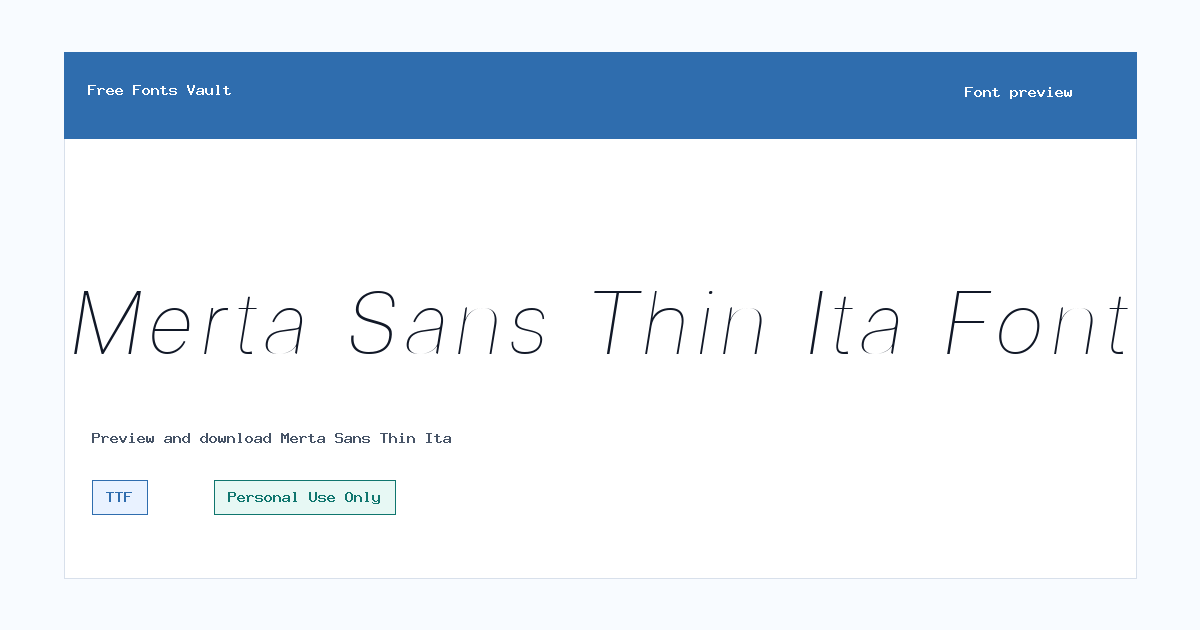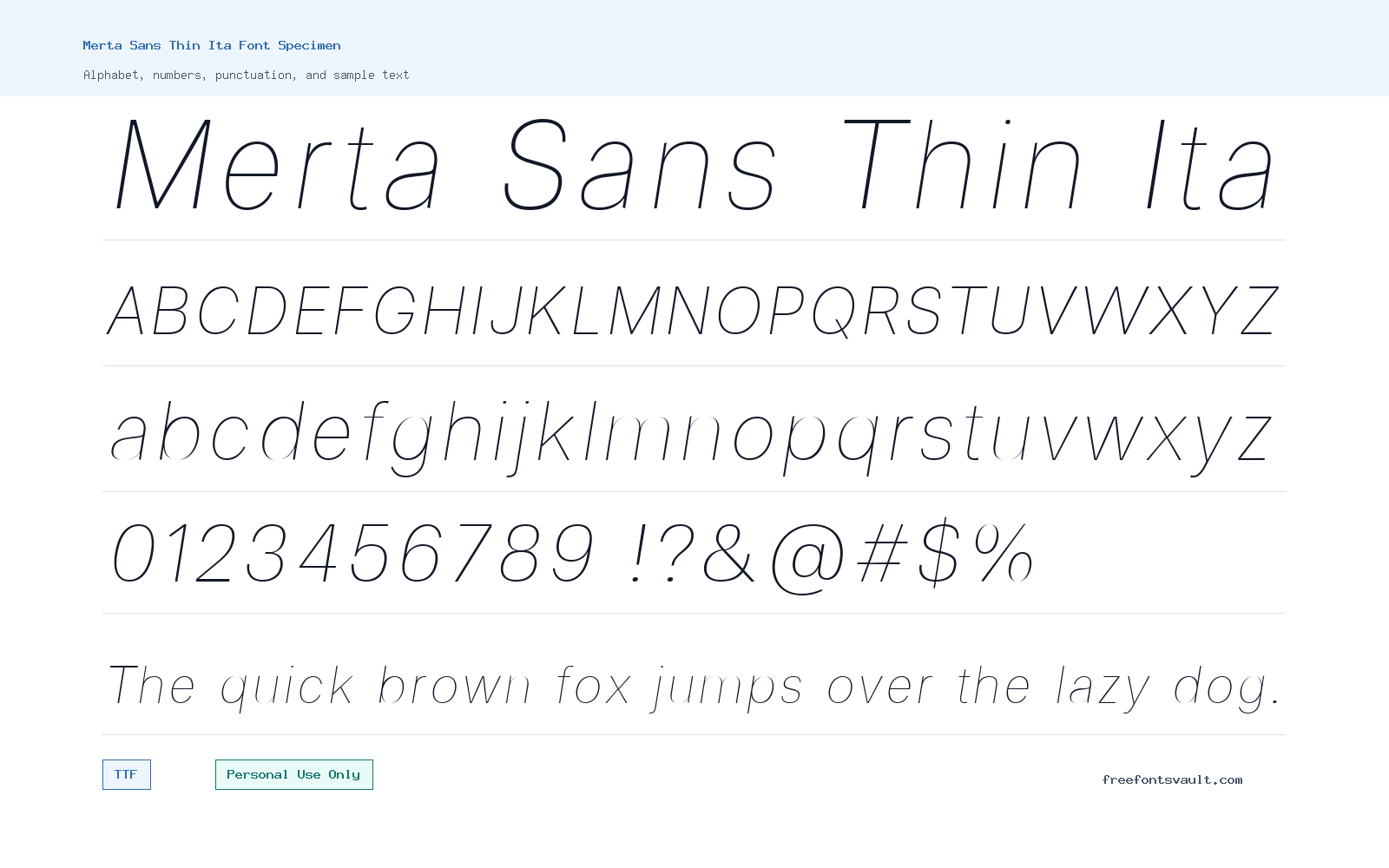
Merta Sans Thin Ita
- Designer Diki Pradipta Tri Atmojo
- Foundry Lettertype Studio Co.
Merta Sans Thin Ita font.
Merta Sans Thin Ita is a thin italic style from the Merta Sans family, designed for light, slanted typography with a clean sans-serif feel. Its fine weight makes it useful when you want a quiet, refined accent rather than a heavy headline.
About Merta Sans Thin Ita
Merta Sans Thin Ita uses a very light 100 weight with an italic style, so it will usually work best in short lines where the shape can stay clear. Thin italic sans fonts can feel polished in titles, nameplates, editorial graphics, fashion-style layouts, portfolio headers, and minimalist social posts. Because the strokes are fine, it is not the safest choice for long body text, small mobile captions, or low-contrast backgrounds. Test it at the exact size you plan to use before committing to a layout.
For logo concepts and branding mockups, Merta Sans Thin Ita can help create a sleek, restrained wordmark direction, especially when paired with strong spacing and simple supporting type. In posters and web mockups, use it for hero headings, section labels, pull quotes, short taglines, or decorative emphasis. If the text needs to carry important information, keep the size generous and avoid placing it over busy images. A thin italic font can look elegant, but it needs enough space, contrast, and breathing room to remain readable.
- Thin 100-weight italic sans-serif style for light, slanted display typography
- Best used for short text, refined headings, logo drafts, posters, and visual mockups
- Clean sans-serif structure that can pair well with a more neutral text font
- Elegant headings and short titles
- Logo concepts and wordmark mockups
- Posters, flyers, and cover-style graphics
- Portfolio headers and web hero mockups
- Fashion, beauty, lifestyle, or editorial-style layouts where a light italic accent fits
- Social media graphics with large, high-contrast text
Merta Sans Thin Ita is credited to designer Diki Pradipta Tri Atmojo and foundry Lettertype Studio Co. The designer website is listed as lettertypestudio.com.
Use Merta Sans Thin Ita where a light italic accent is the main visual detail. It can work well for large headings, elegant logo tests, poster titles, and web mockup hero text. For readable layouts, pair it with a sturdier sans-serif or serif for paragraphs, labels, menus, and small text. Avoid using thin italic letters on textured backgrounds, low-resolution images, or very small sizes, because the strokes may become hard to read. Increase letter spacing carefully: a little spacing can make thin type feel more refined, but too much can break word recognition. For logo work, test uppercase, lowercase, and mixed-case versions before choosing a direction.
What kind of font is Merta Sans Thin Ita?
It is a thin italic sans-serif font style. The font file is marked as TTF, with italic styling and a 100 weight.
What is Merta Sans Thin Ita best used for?
It is best for short, elegant text such as headings, logo concepts, poster titles, portfolio headers, pull quotes, and refined web mockup typography.
Can I use this font for body text?
It is not ideal for long reading. The thin italic style is better as an accent. Use a stronger, more readable font for paragraphs and small interface text.
Who designed Merta Sans Thin Ita?
The font is credited to Diki Pradipta Tri Atmojo, with Lettertype Studio Co. listed as the foundry.
What should I pair with Merta Sans Thin Ita?
Pair it with a plain, sturdy sans-serif for clean modern layouts, or a readable serif if you want more editorial contrast. Keep the partner font simple so the thin italic style remains the accent.